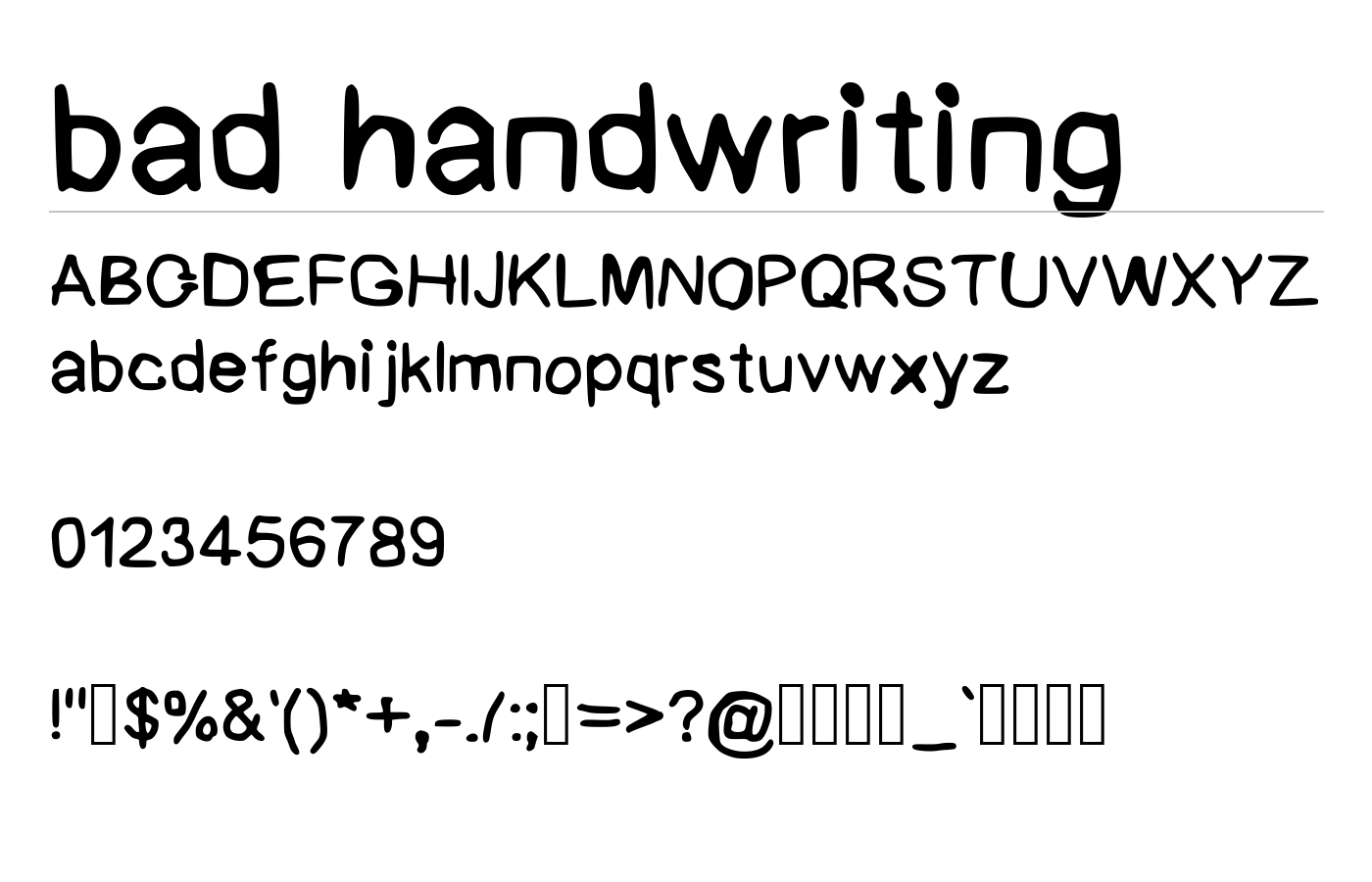
Bad Handwriting is a playful, casual sans serif font that mimics imperfect, hand-drawn lettering with uneven strokes and irregular shapes. Its friendly and informal style makes it ideal for creative projects, kids’ materials, and any design needing a personal, approachable touch. This font works best for headlines, logos, and fun packaging where a relaxed, handmade feel is desired.
bad handwriting Font
About bad handwriting Font